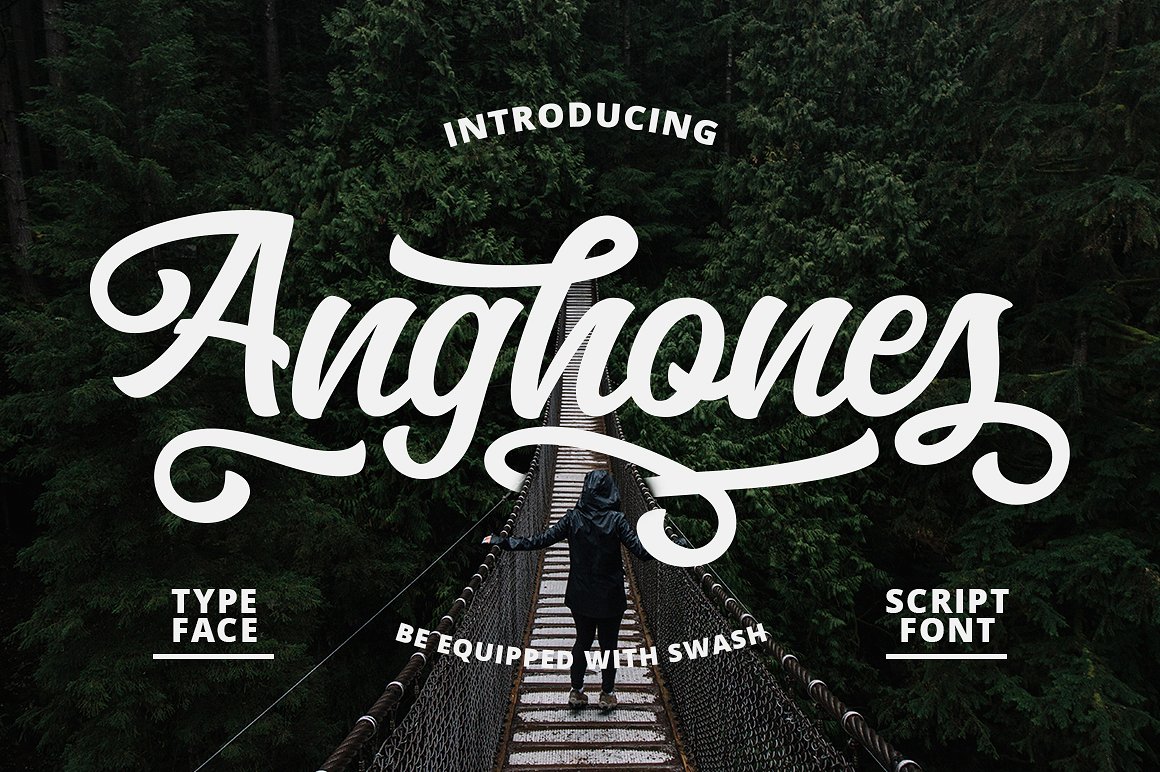
Anghones Brush
Anghones Brush Font
Anghones Script is a simple typography and easy to read so comfortable to wear. You can use them as logos, badges, packaging, headlines, posters, t-shirts / clothing, greeting cards, business cards, and wedding invitations and more. The flowing character is ideal for creating interesting messages to your taste.